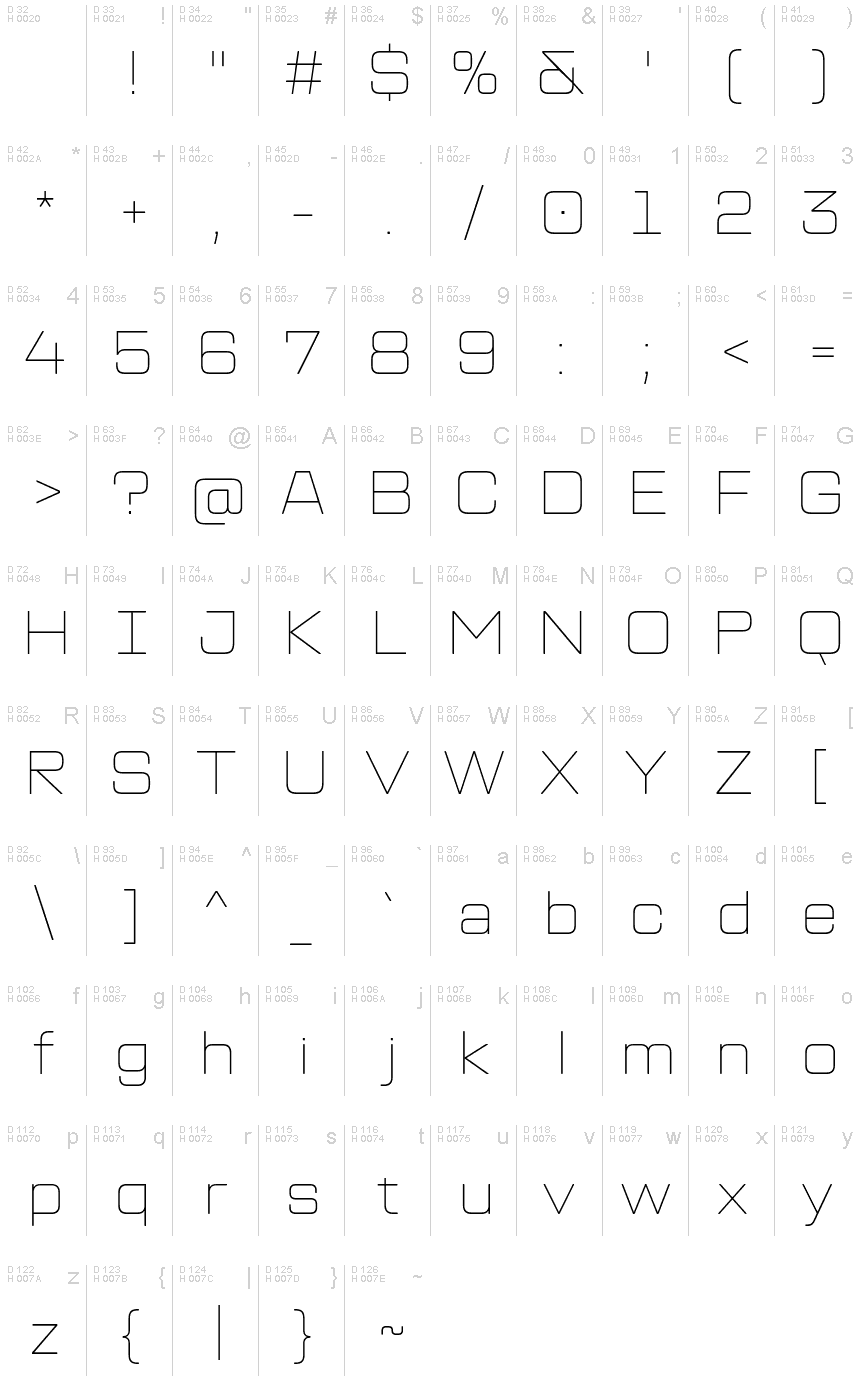
TT Lakes Neue Trl Ext Th
TT Lakes Neue Ext Th is a bold and modern sans serif font designed by the TypeType Foundry. Its ultra-light weight and expanded width make it perfect for eye-catching headlines and titles that demand attention. Whether you are designing a website, creating a logo, or crafting marketing materials, TT Lakes Neue Ext Th will add a touch of sophistication to your project. This versatile font is suitable for a wide range of projects from fashion magazines to technology websites. Its futuristic style will leave a lasting impression on your audience and make your message stand out from the rest.